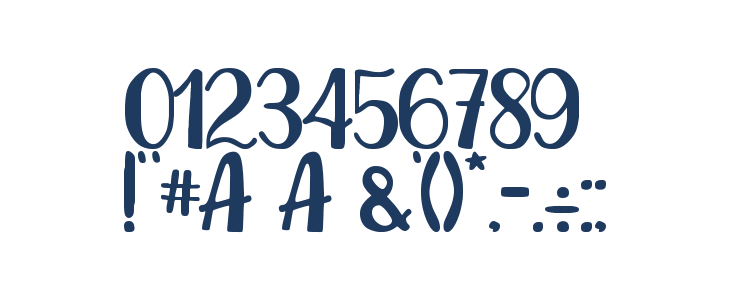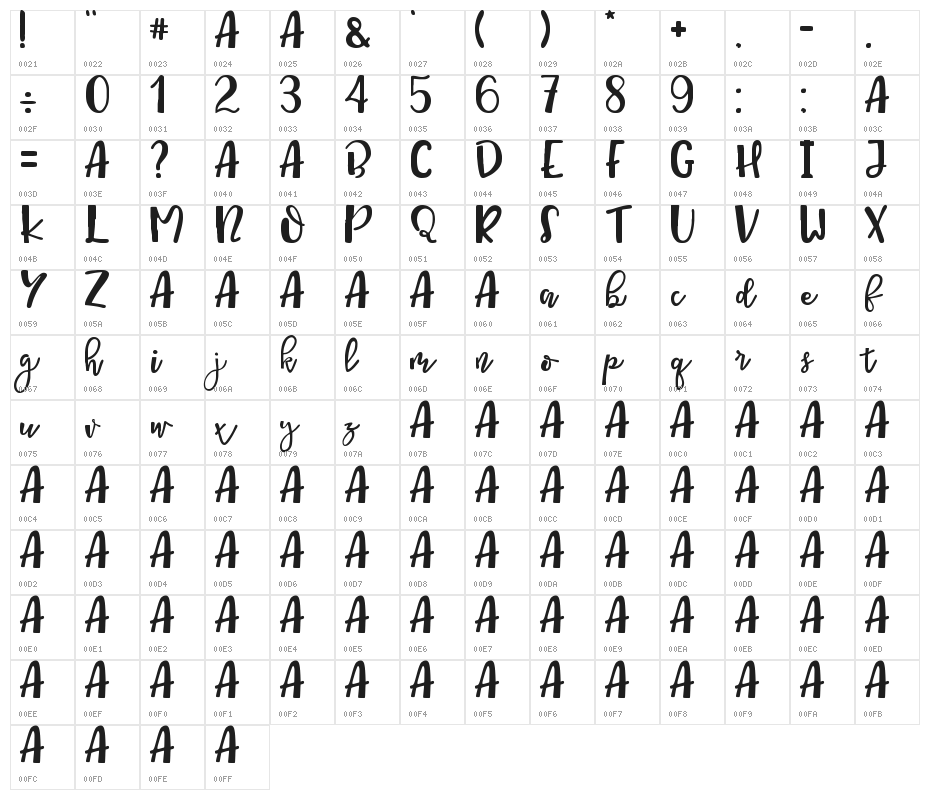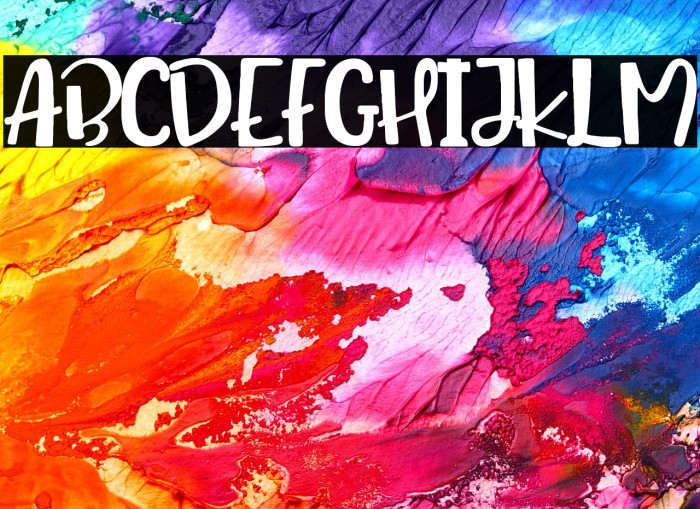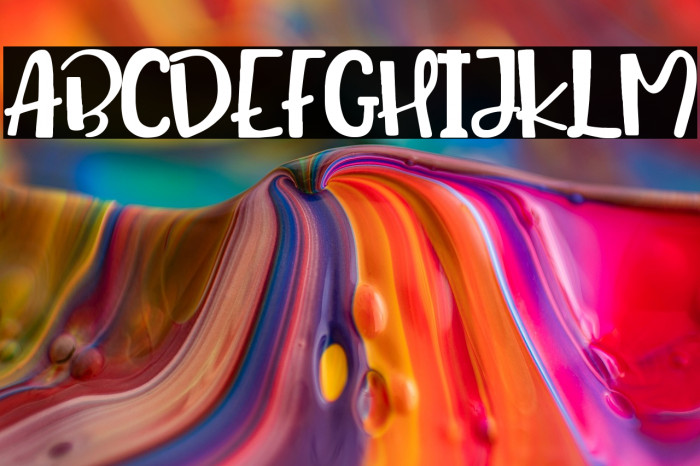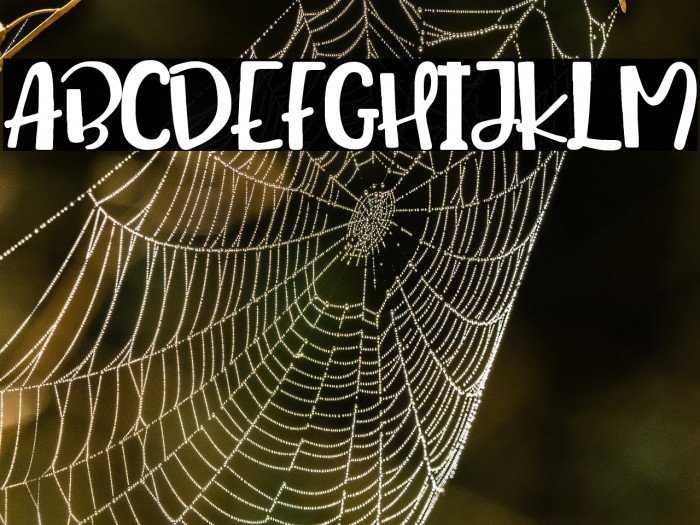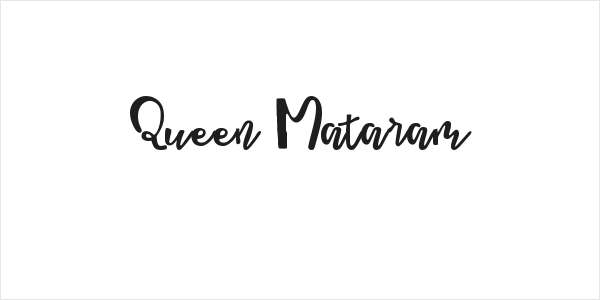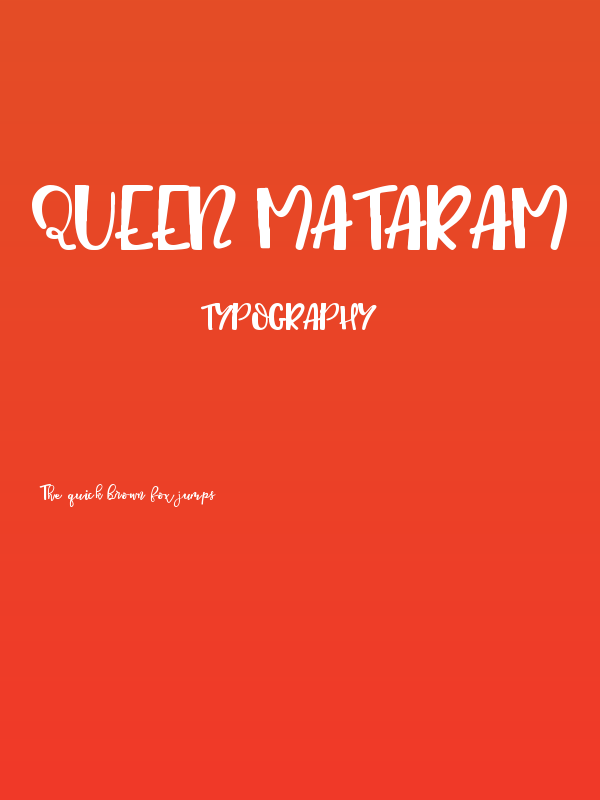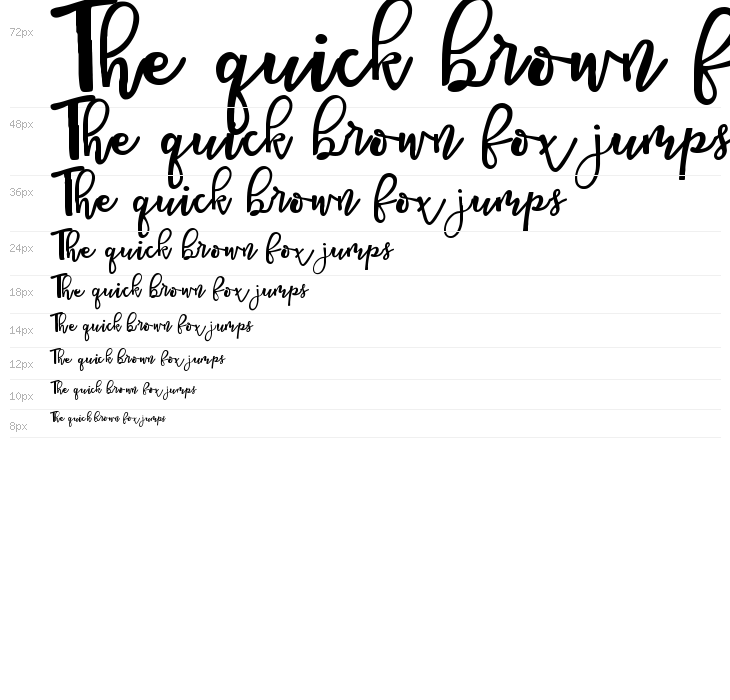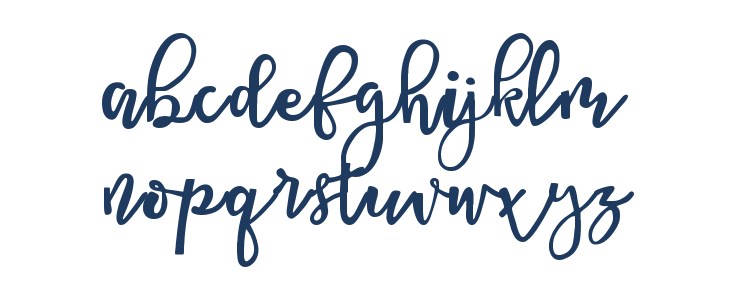
Queen Mataram Font
Queen Mataram Description
This font features a playful and artistic script style with a bold and expressive character. The uppercase letters are bold and slightly condensed, with a whimsical flair that adds a touch of personality. The lowercase letters are more fluid and cursive, offering a dynamic contrast to the uppercase. The numbers are bold and clear, maintaining the playful aesthetic. Special characters are creatively designed, adding to the overall charm. The font's style is both modern and decorative, making it suitable for a variety of creative projects.